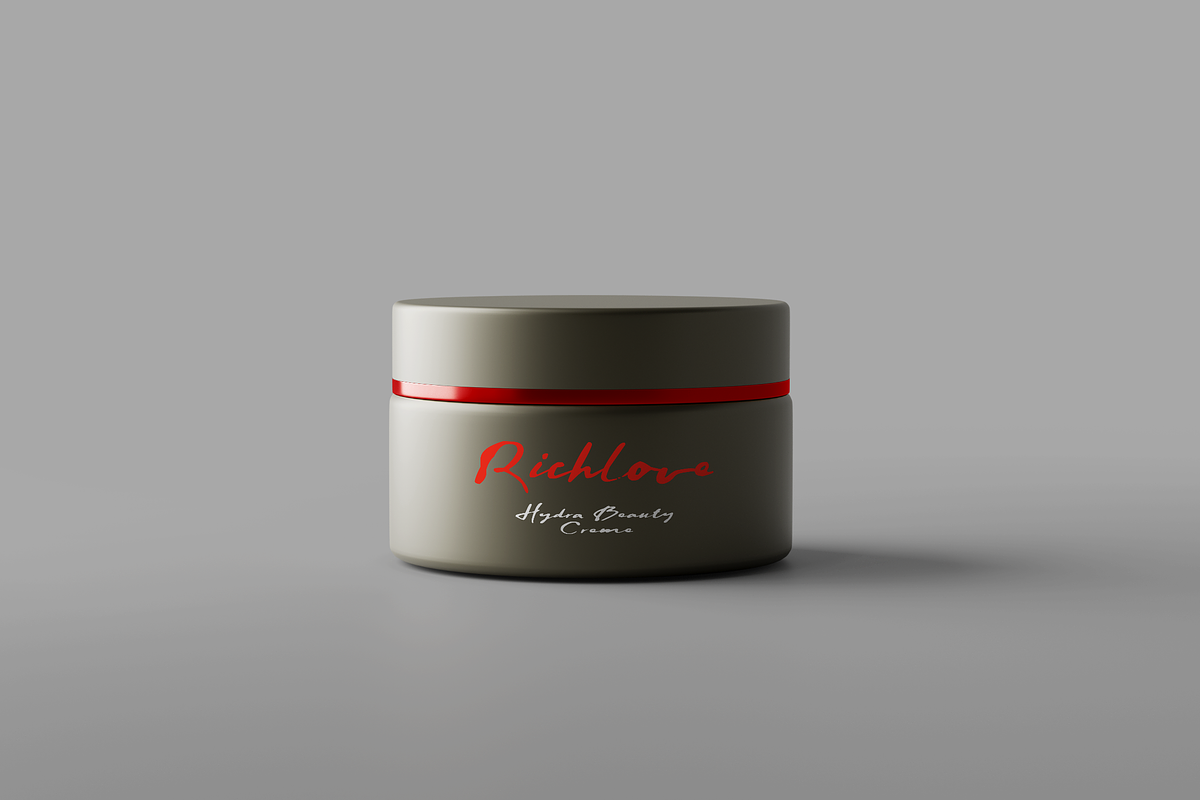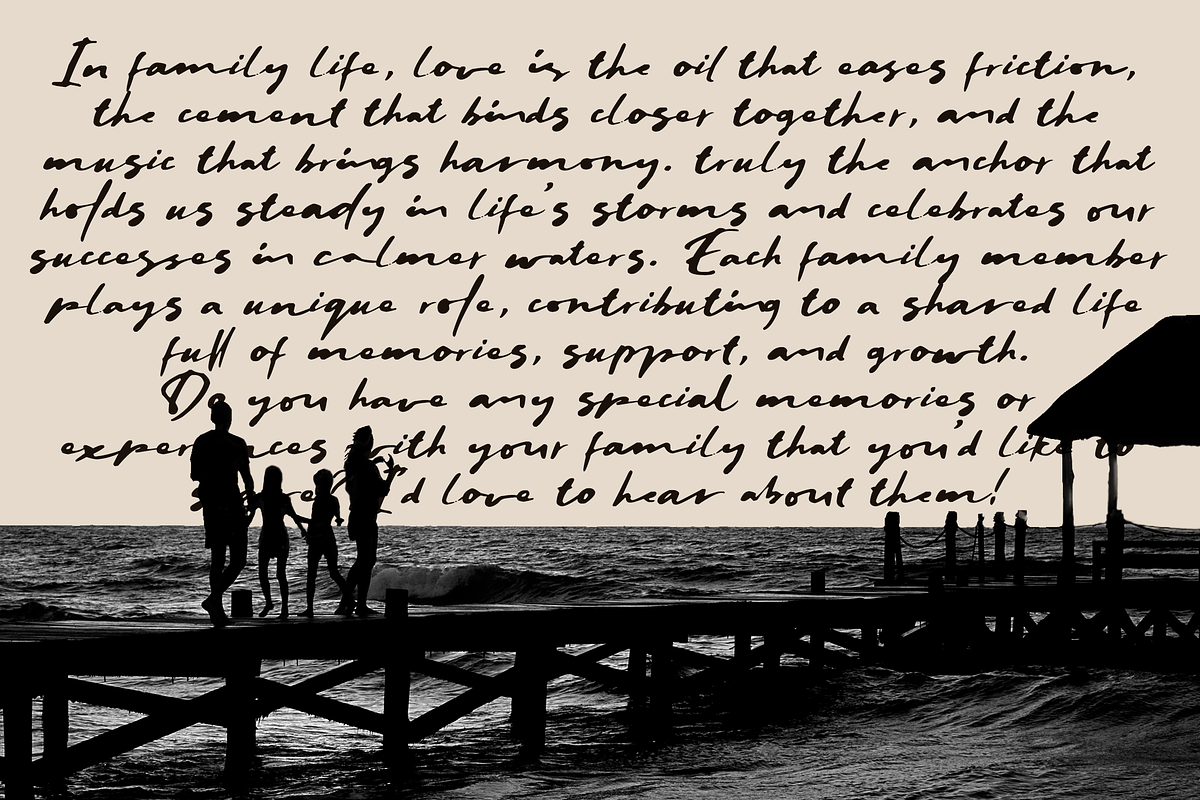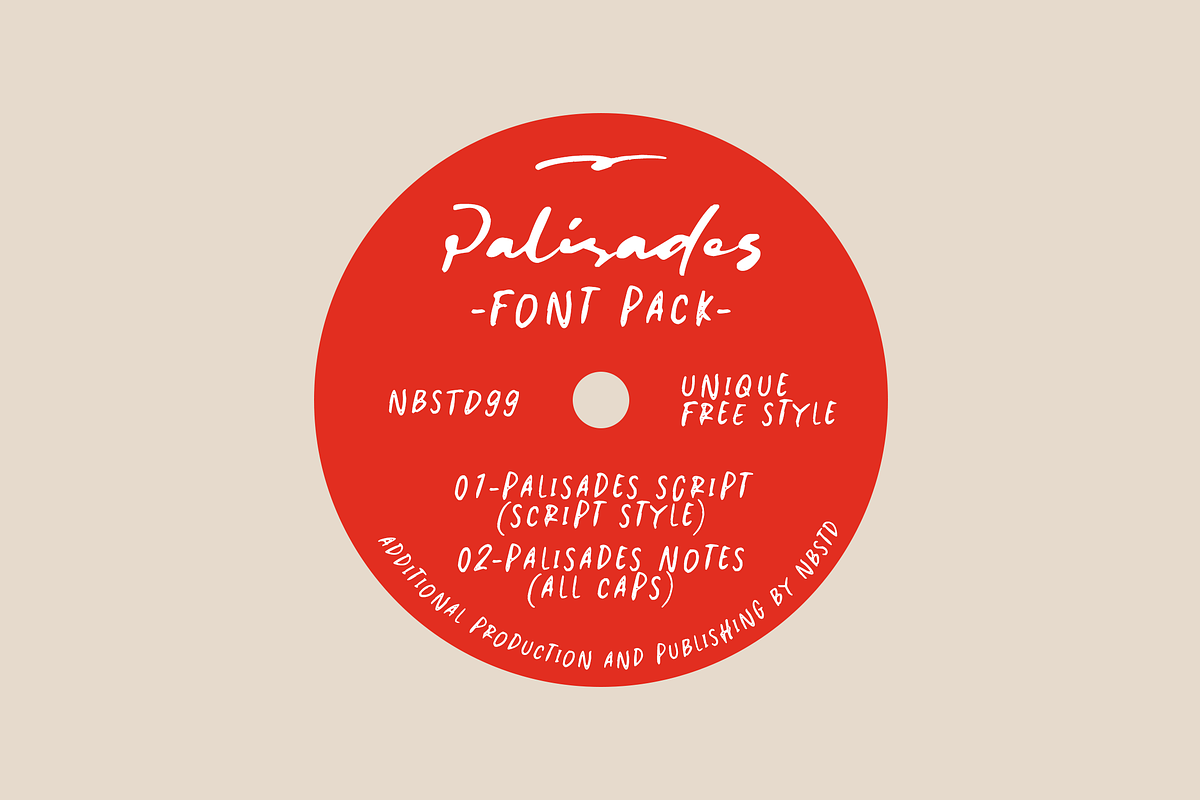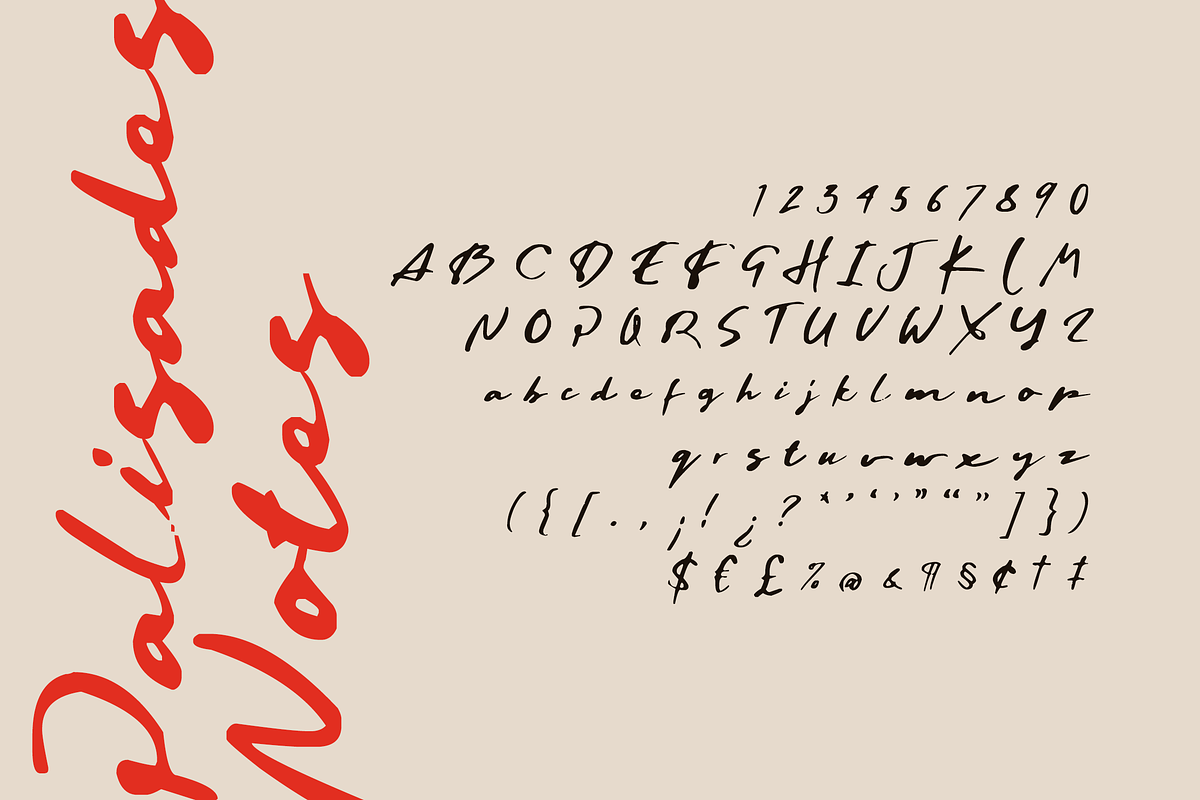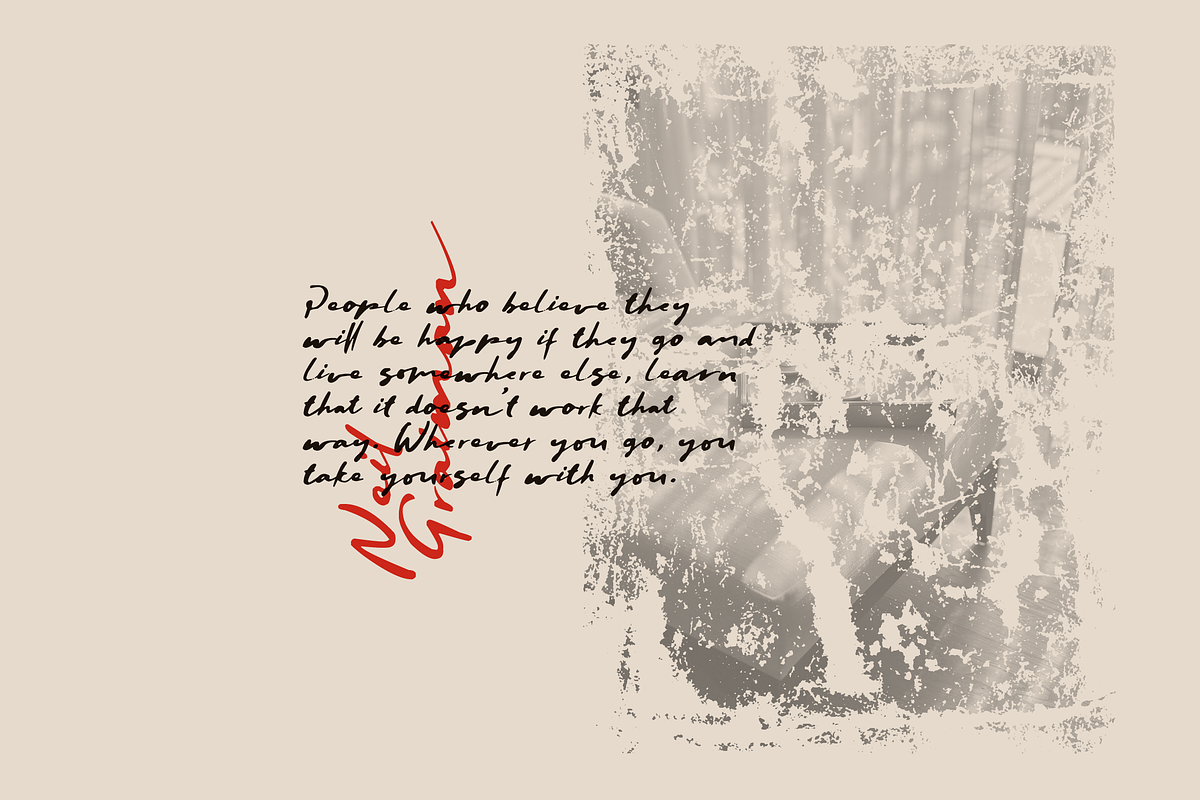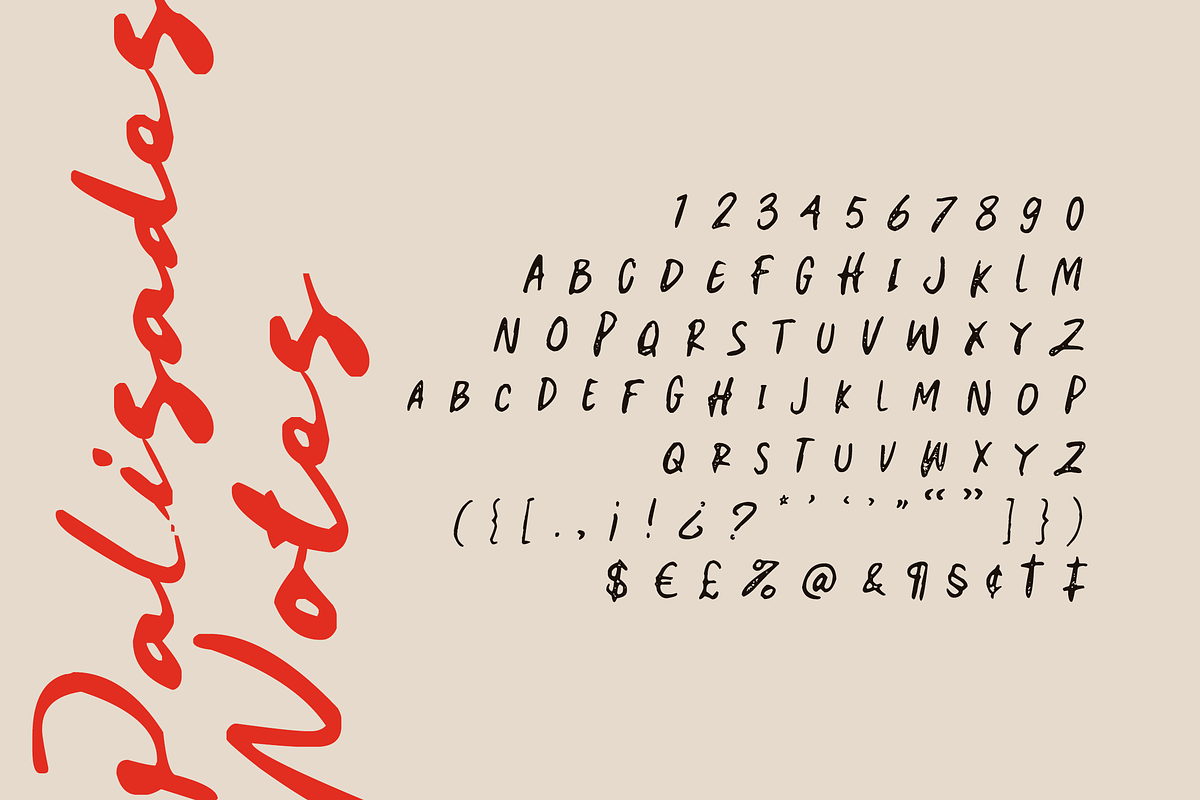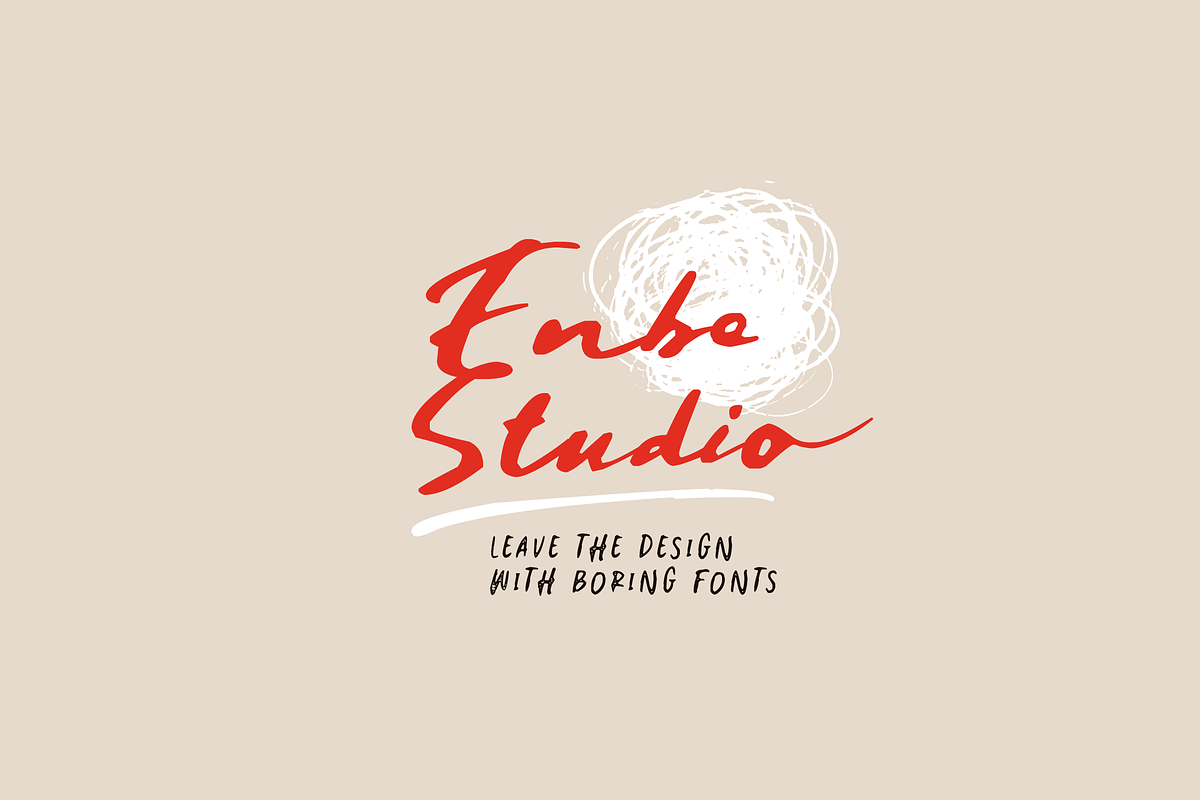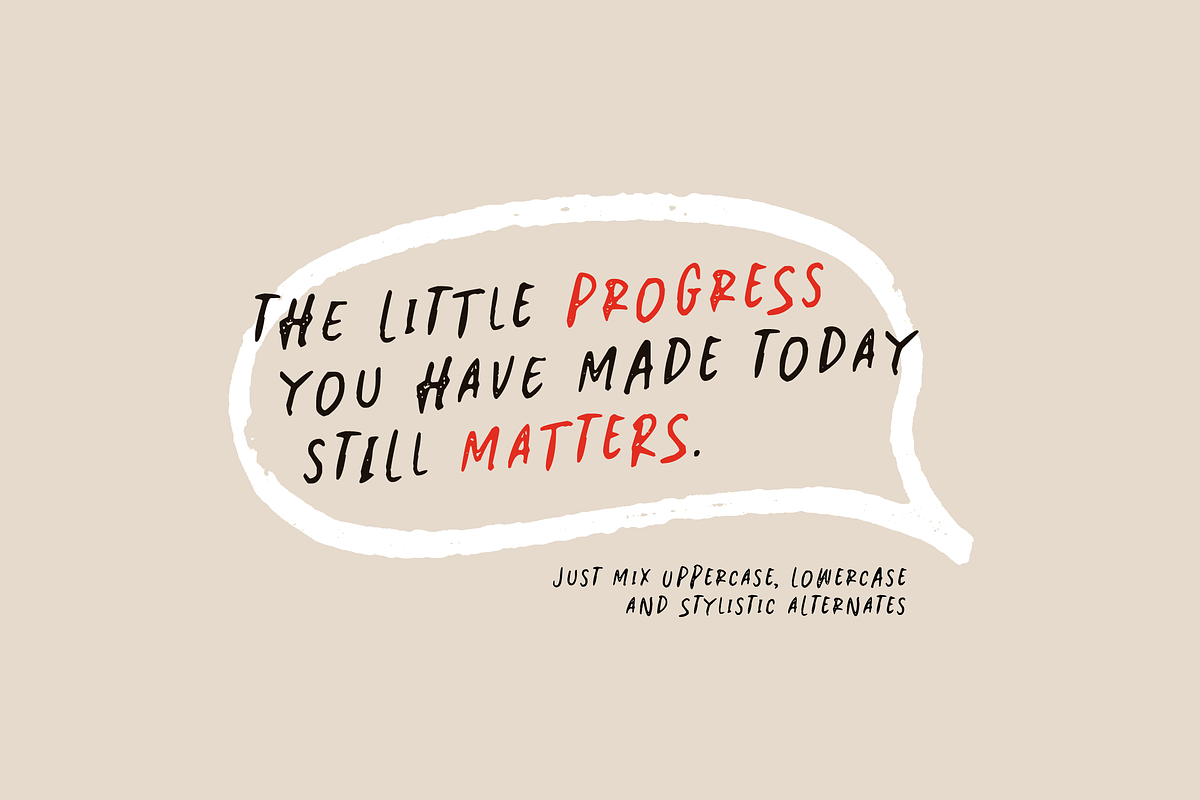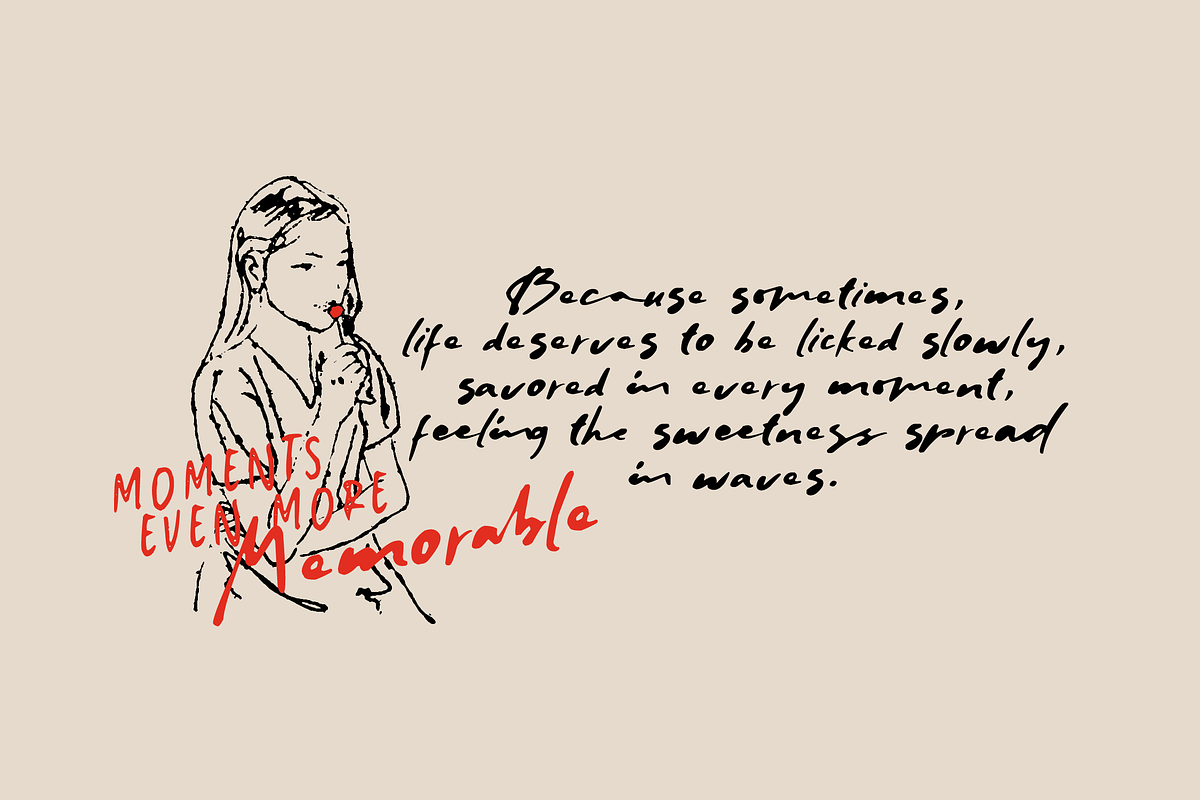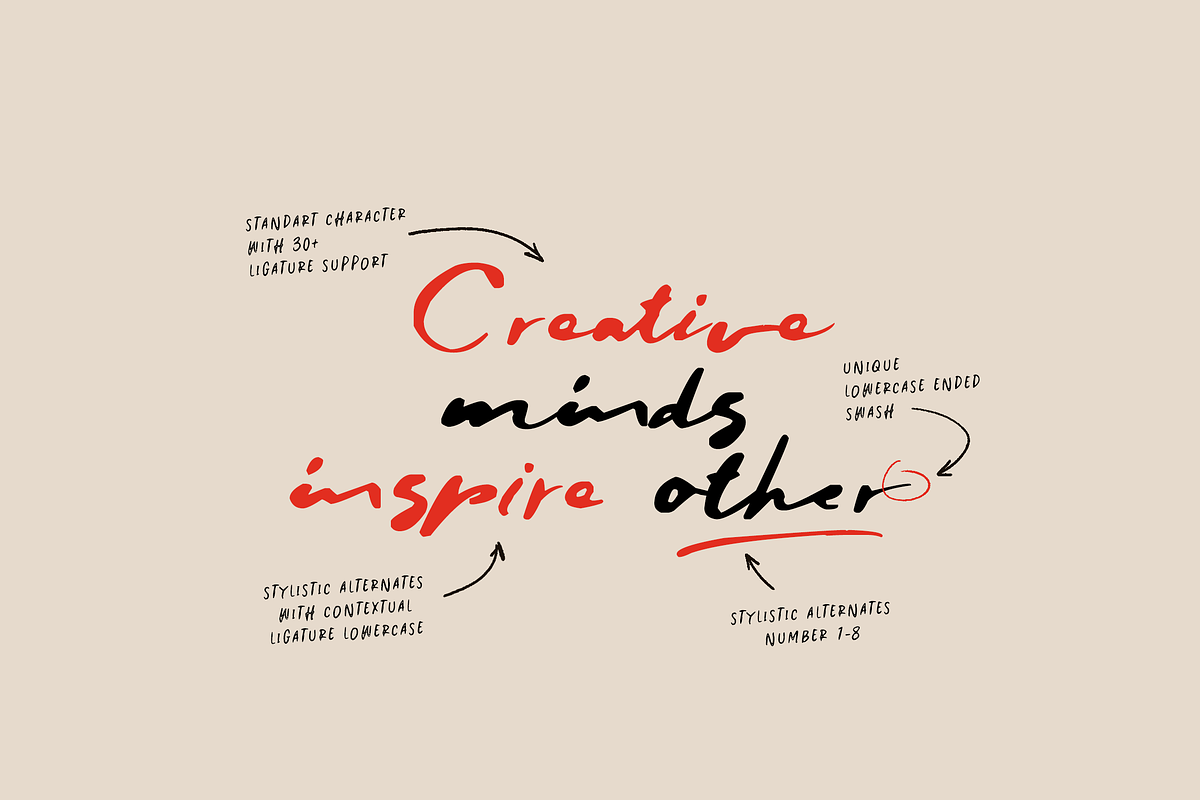
Palisades
This font combines the beauty of a single, uniform line with a touch of unexpected uniqueness. Palisades offers a clean, minimalist feel, but with a slightly playful and irregular letter character. Each letter is designed with clean proportions but has elements that give it an unconventional feel, creating a fun and dynamic impression.
Palisades is perfect for creative projects that want to display a modern look with a little twist. Whether it’s for logos, branding, posters, or social media, Palisades provides a fresh and unique feel that can attract attention. The combination of high readability and irregular details makes this font perfect for creating a memorable impression in your designs.